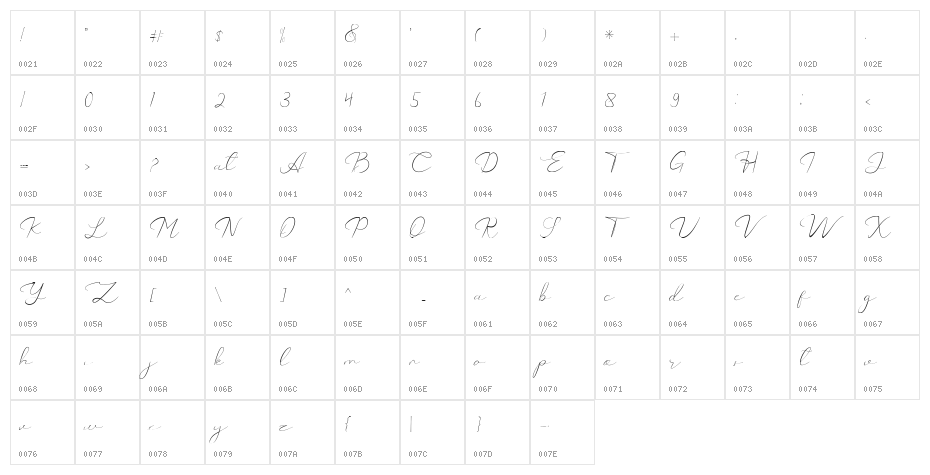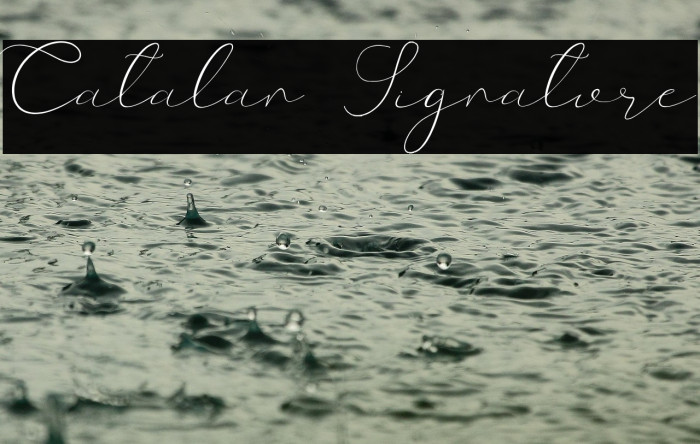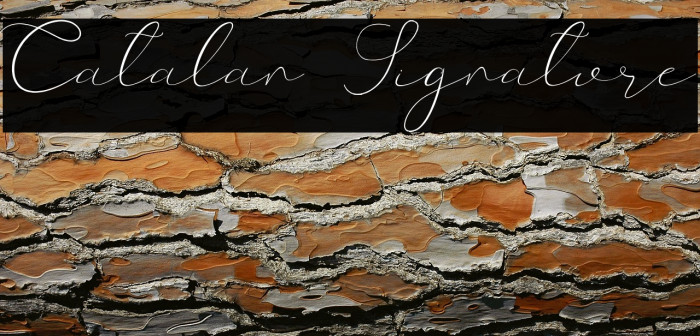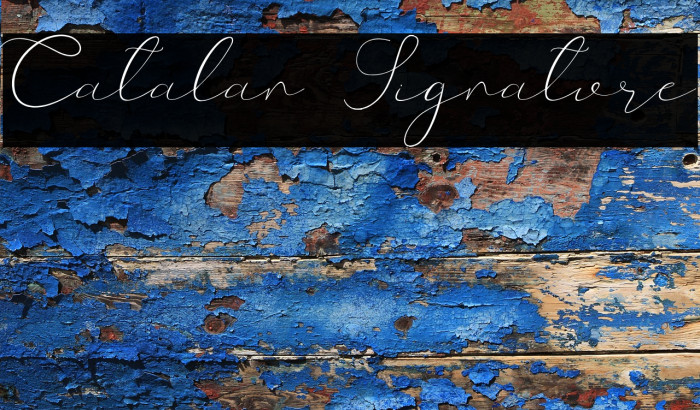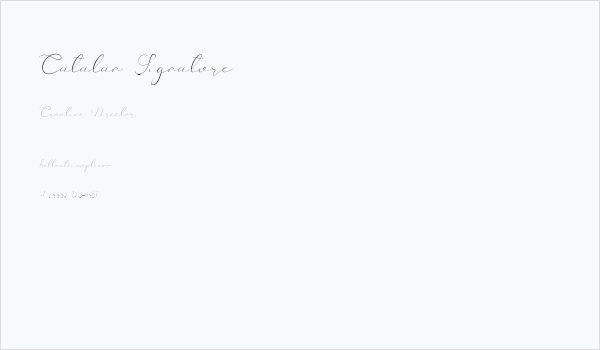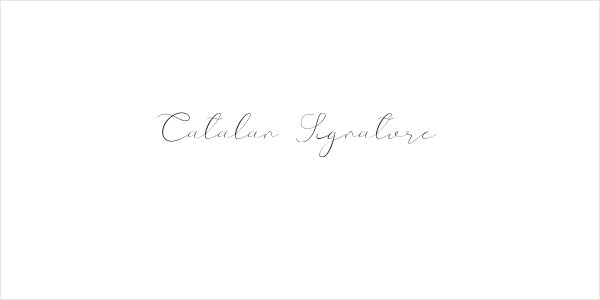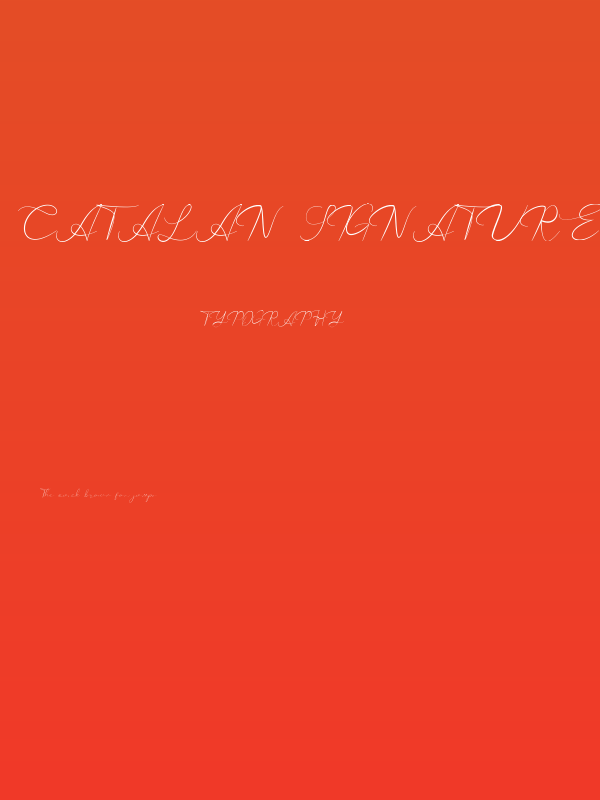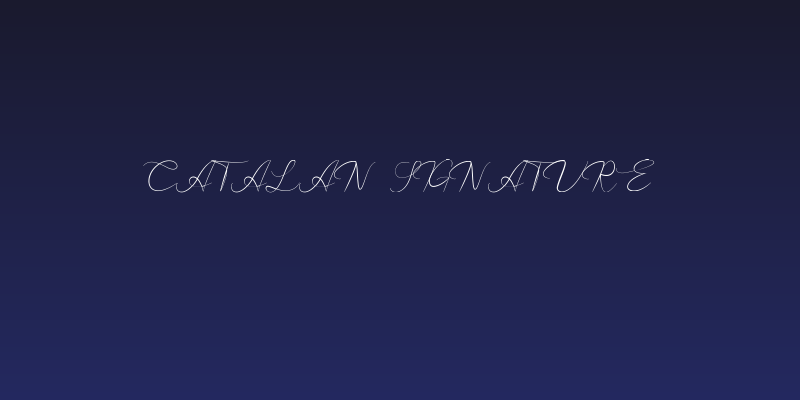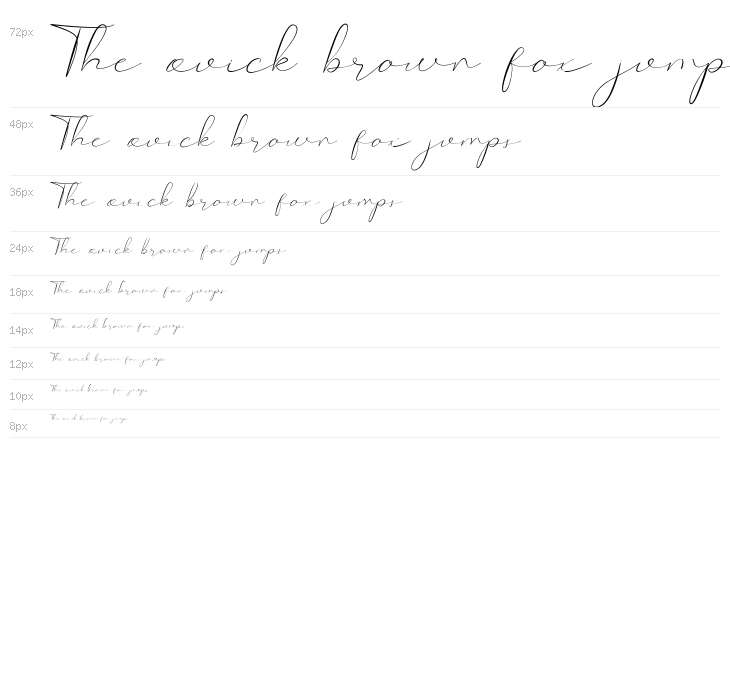
Catalan Signature Font
Catalan Signature Description
This elegant and flowing script font exudes a sense of sophistication and grace, with its delicate, cursive strokes and smooth, continuous lines. Each character is carefully crafted to maintain a harmonious balance, making it ideal for creating a refined and polished look. The font features a consistent slant and a light, airy feel, enhancing its overall elegance. Its thin strokes and high contrast between thick and thin lines add to its stylish and modern appeal. The font's design is perfect for conveying a sense of luxury and exclusivity, making it suitable for high-end branding and design projects.
| Overall Style | Elegant, Modern |